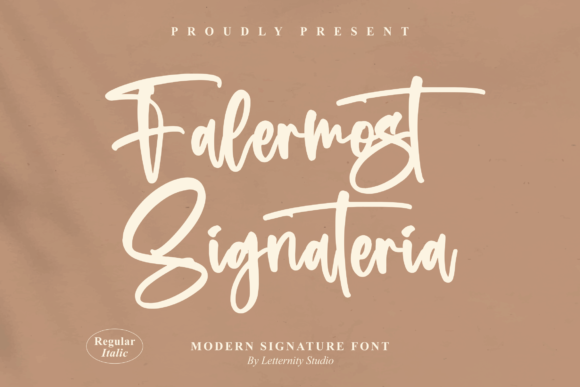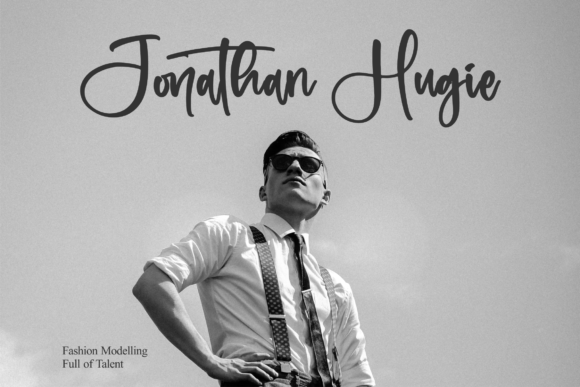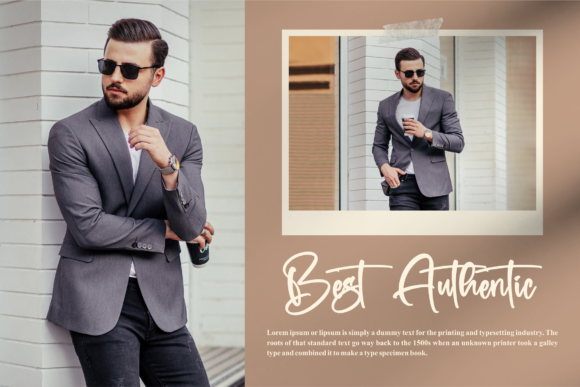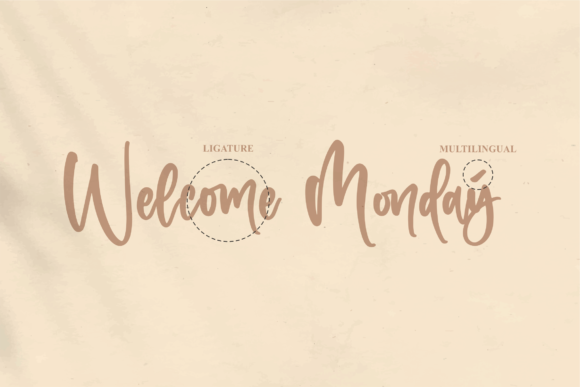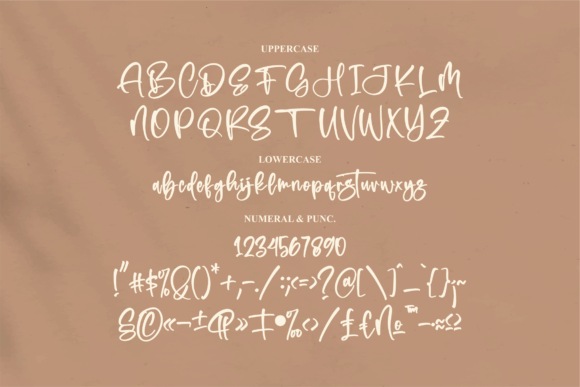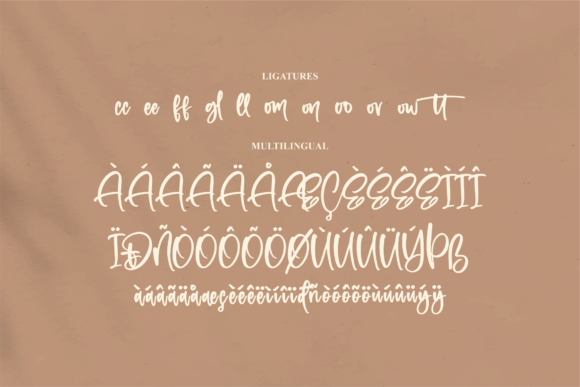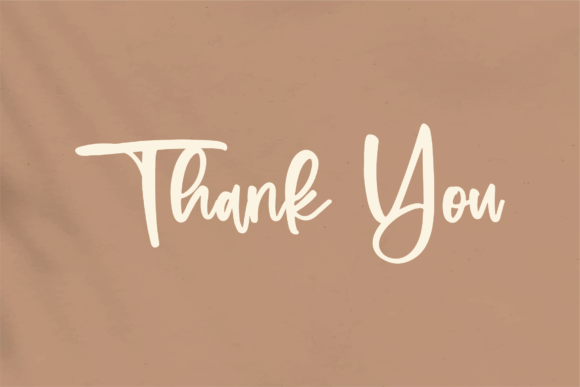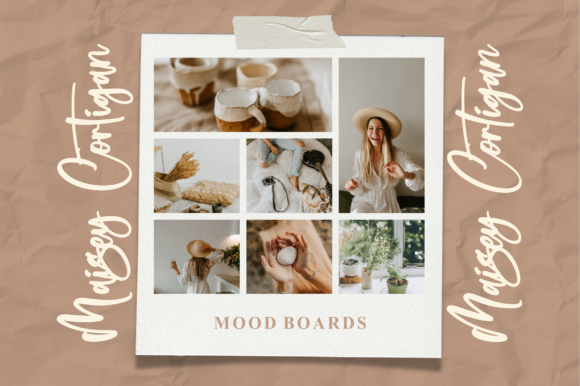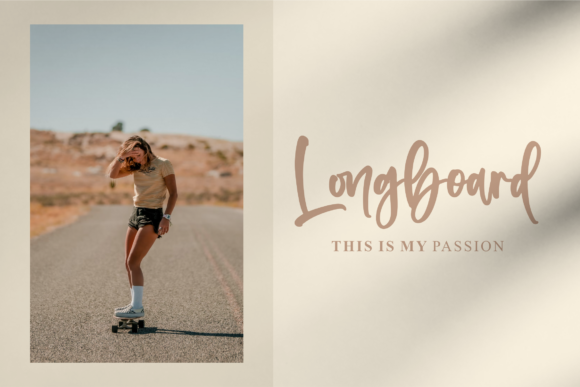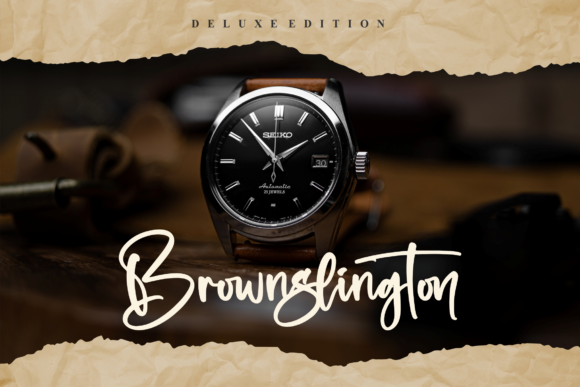
Falermost Signateria Font
About Falermost Signateria Font
Falermost Signateria is a gorgeous script font. It is suitable for any projects such as: logos, branding projects, homeware designs, product packaging, mugs, quotes, posters, shopping bags, t-shirts, book covers, name card, and all your other lovely projects that need a beautiful script taste.